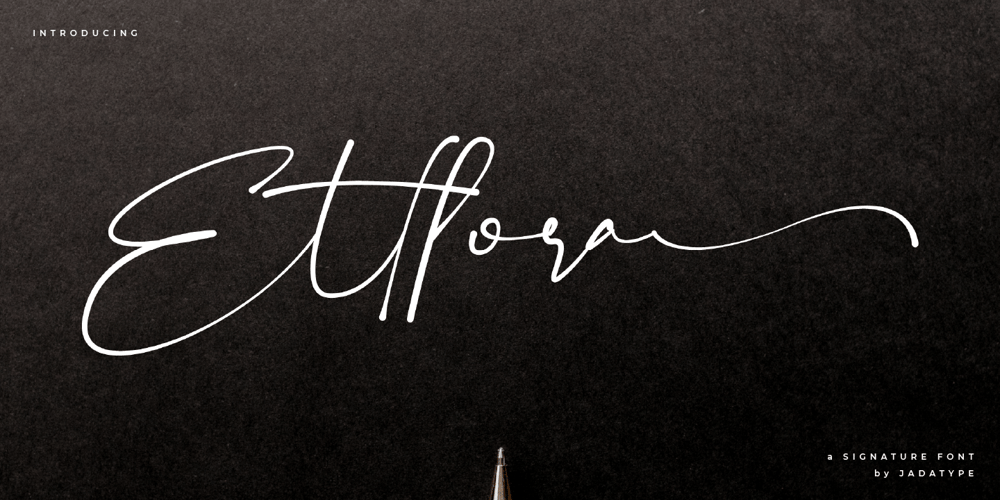
Ettlora Font Family was designed by Jada Akbal and published by Jadatype. Ettlora contains 1 styles and family package options. Ettlora is a script font with a natural line vibe. gives the impression of a signature, elegant, and beautiful. suitable to be paired with logomarks, branding, invitation cards, greetings cards, events, weddings, and others. Contains standard English fonts and some support for multilingual. can be installed in applications such as adobe family, affinity, Ms.Word, or similar applications.